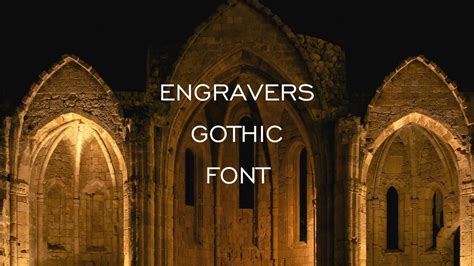
Engravers Gothic Font. For use in advertising and display typography. Engravers gothic contains 1 styles.
Web engravers gothic family | fonts.com. ← back to family page. Web engravers' gothic by tilde. For use in advertising and display typography. Web engravers gothic font family was designed by published by tilde. Engravers gothic contains 1 styles.
← back to family page. Web engravers' gothic by tilde. For use in advertising and display typography. Engravers gothic contains 1 styles. Web engravers gothic font family was designed by published by tilde. Web engravers gothic family | fonts.com. ← back to family page.